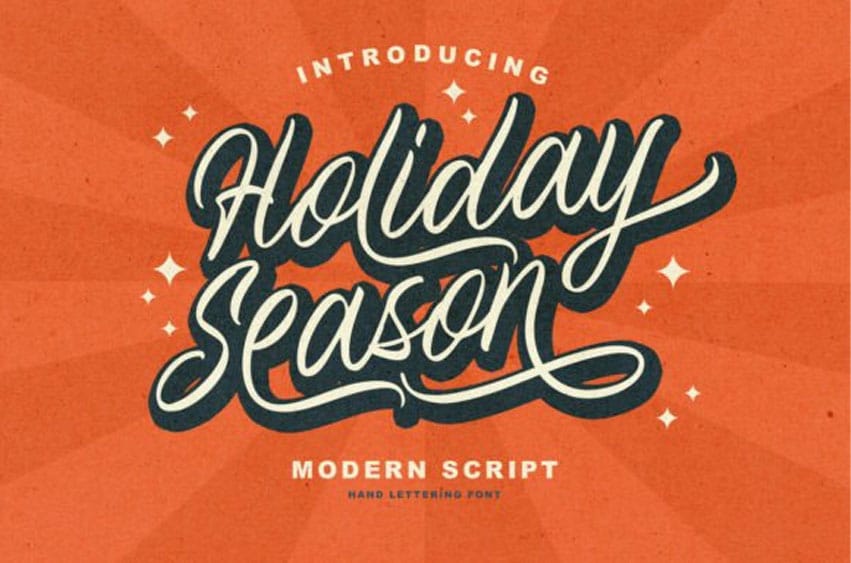
Holiday Season Font is a hand-lettering script font. You can use this font for every project. Suitable for branding logo, hand lettering, or apparel design.
With a bunch of alternates, you can make your lettering quotes more attractive. This font also supports multilingual, numbers, and symbols.